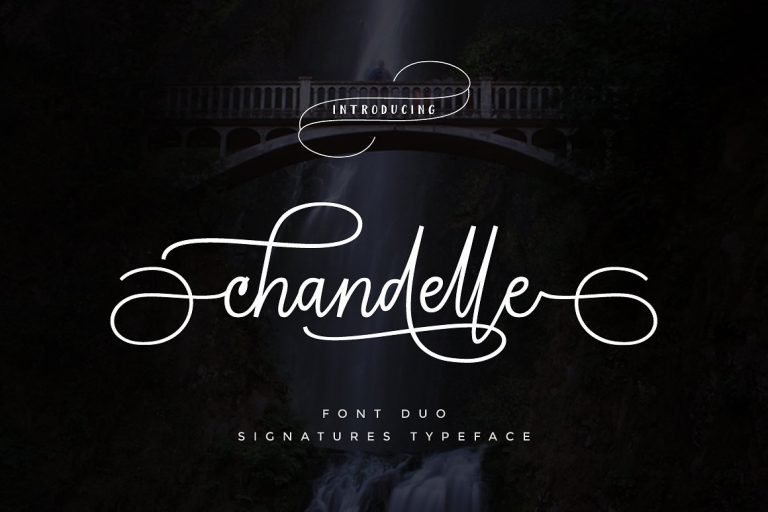
Chandelle Signature Font
A work that is purely handwritten, has natural characteristics. Introducing Chandelle Font. Chandelle is a handwritten signature script with a natural & stylish flow, perfectly suited to signature, stationery, logo, typography quotes, magazine or book cover, website header, clothing, branding, packaging design and more.